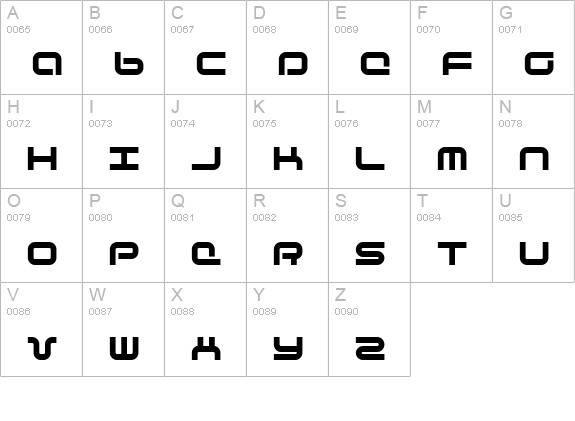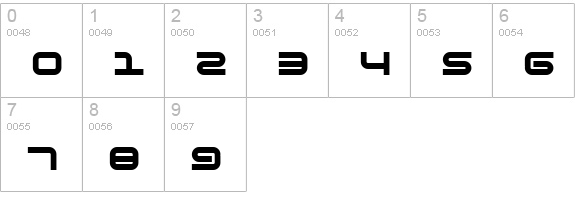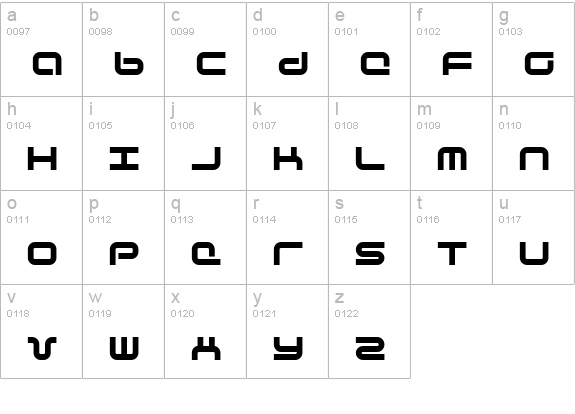
Phutura Font Details
Phutura font is a captivating and versatile typeface that effortlessly combines modernity with elegance. Its sleek and geometric design exudes a sense of sophistication, making it perfect for a wide range of creative projects. Whether you're designing a contemporary logo, crafting eye-catching headlines, or creating stunning graphic designs, Phutura font is sure to make a memorable impact. With its clean lines and balanced proportions, Phutura font offers a harmonious balance between legibility and style. Its letterforms are carefully crafted to create a sense of visual rhythm, making it a pleasure to read and a joy to work with. The precise detailing of each character ensures that every word and phrase stands out, even at smaller sizes. What makes Phutura font even more enticing is the fact that it is available for free. Yes, you read that right! This extraordinary typeface can be downloaded at FontsMarket.com without any cost. So, whether you're a professional designer or an enthusiastic hobbyist, you can access and utilize the full potential of Phutura font without breaking the bank. The versatility of Phutura font is truly remarkable. Its expansive character set includes uppercase and lowercase letters, numbers, punctuation marks, and a variety of special characters, allowing you to fully express your creativity. The font's wide range of weights and styles further enhance its flexibility, allowing you to effortlessly adapt it to any design concept or project requirement. Phutura font's modern and timeless appeal is further enhanced by its compatibility with both print and digital mediums. Whether you're designing for a sleek magazine layout or creating engaging website content, this font delivers exceptional legibility and aesthetic appeal in any context. In summary, Phutura font is a stunning typeface that effortlessly combines modernity and elegance. Its clean lines, precise detailing, and versatile character set make it the perfect choice for a wide range of design projects. And the best part? It's free! Simply head over to FontsMarket.com to download and unlock the potential of Phutura font for your next creative endeavor.